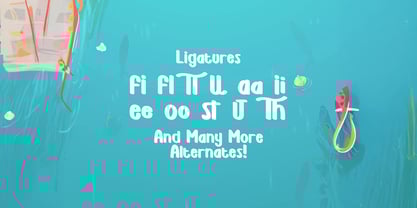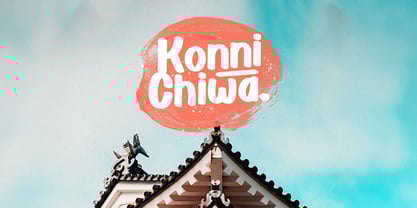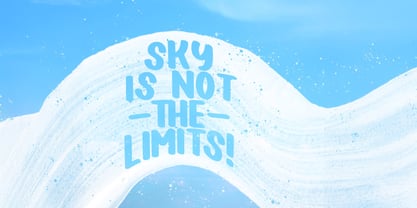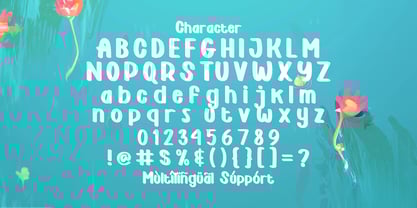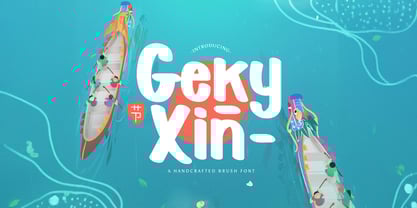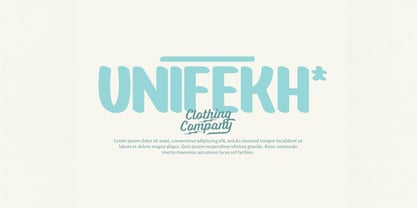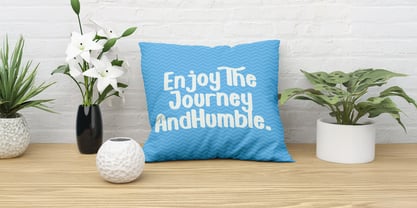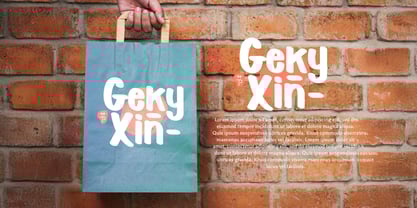
La familia tipográfica Geky Xin fue diseñada por Virgiawan Listanto y publicada por Stringlabs Creative Studio. Geky Xin contiene 1 estilos.
Geky Xin is a vibrant, fun-loving display font that brings a sense of whimsy and excitement to your designs. With its bold, quirky shapes and unique character, this font is perfect for making a statement in playful, youthful projects. Whether you're designing for children’s books, vibrant posters, party invitations, or creative branding, Geky Xin adds a cheerful touch that instantly grabs attention.
Geky Xin